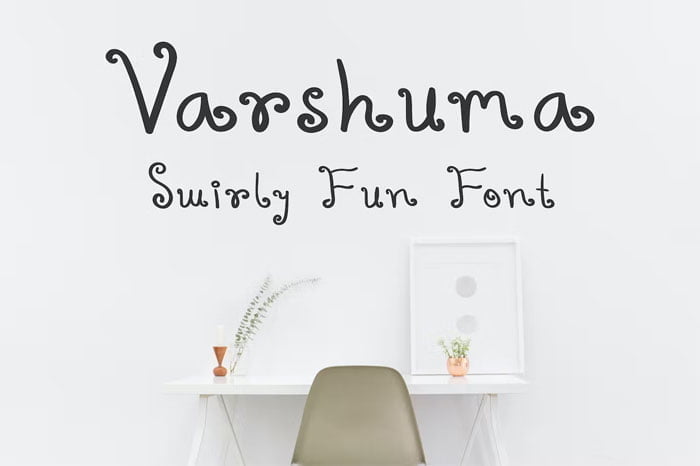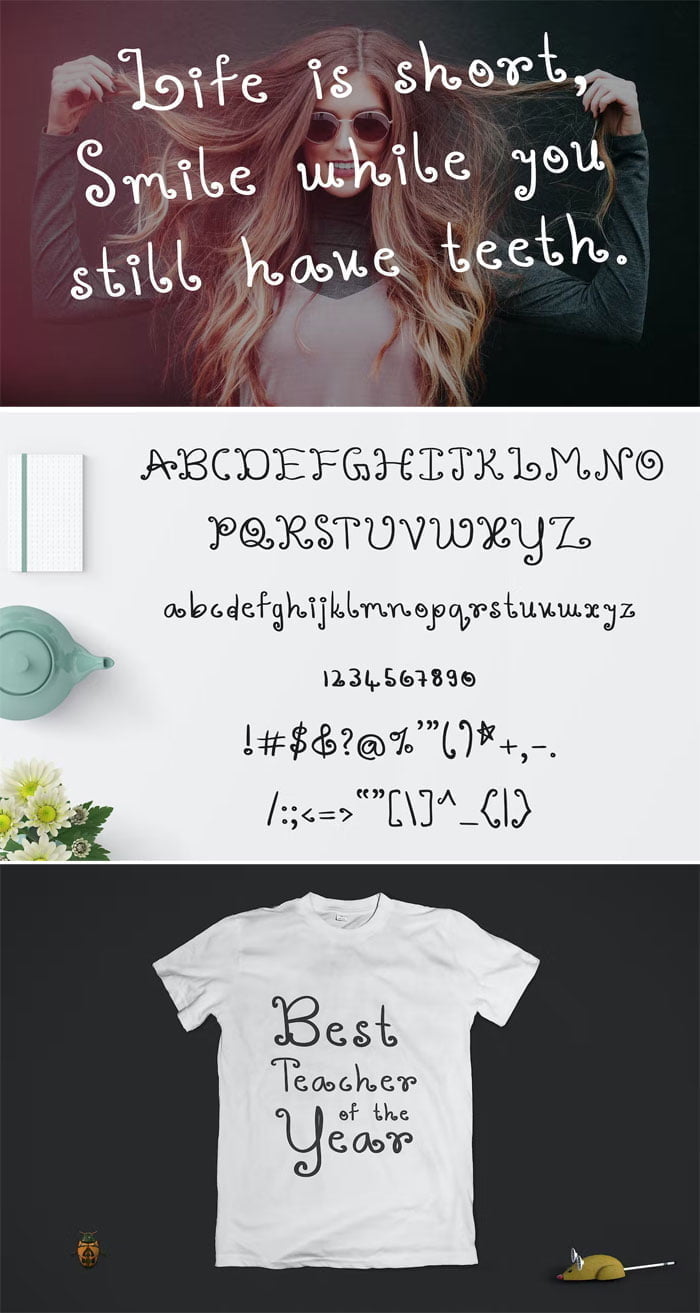
Varshuma Handwritten Swirly Fun Font
Here in this post, you can Free Download Varshuma Handwritten Swirly Fun Font T2CPBF5 compress files through the below link. Varshuma Handwritten Swirly Fun Fonts and cute typeface, ideal for kids designs, invitations, quotes, simple image overlays and video projects. Basic Latin letters (English uppercase, lowercase, numbers, symbols/punctuation) You Can Also Download 100+ Fonts Bundle.
Varshuma Handwritten Swirly Font